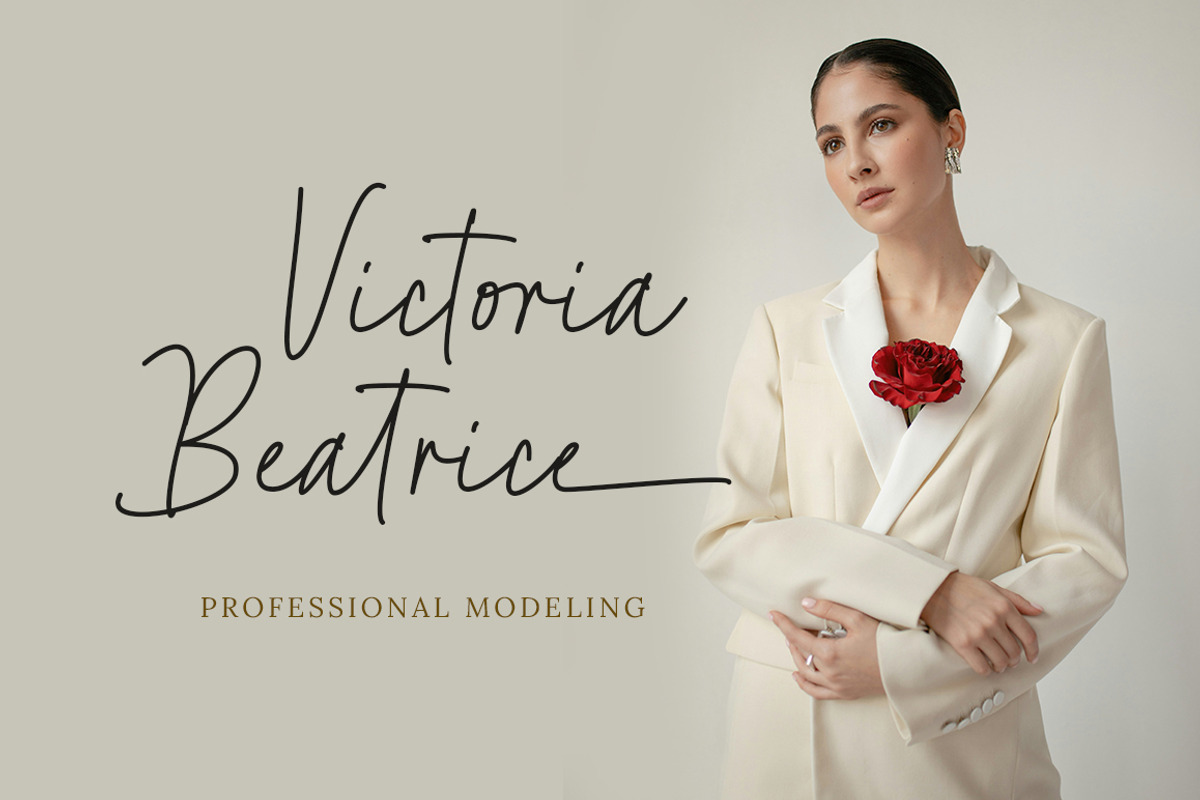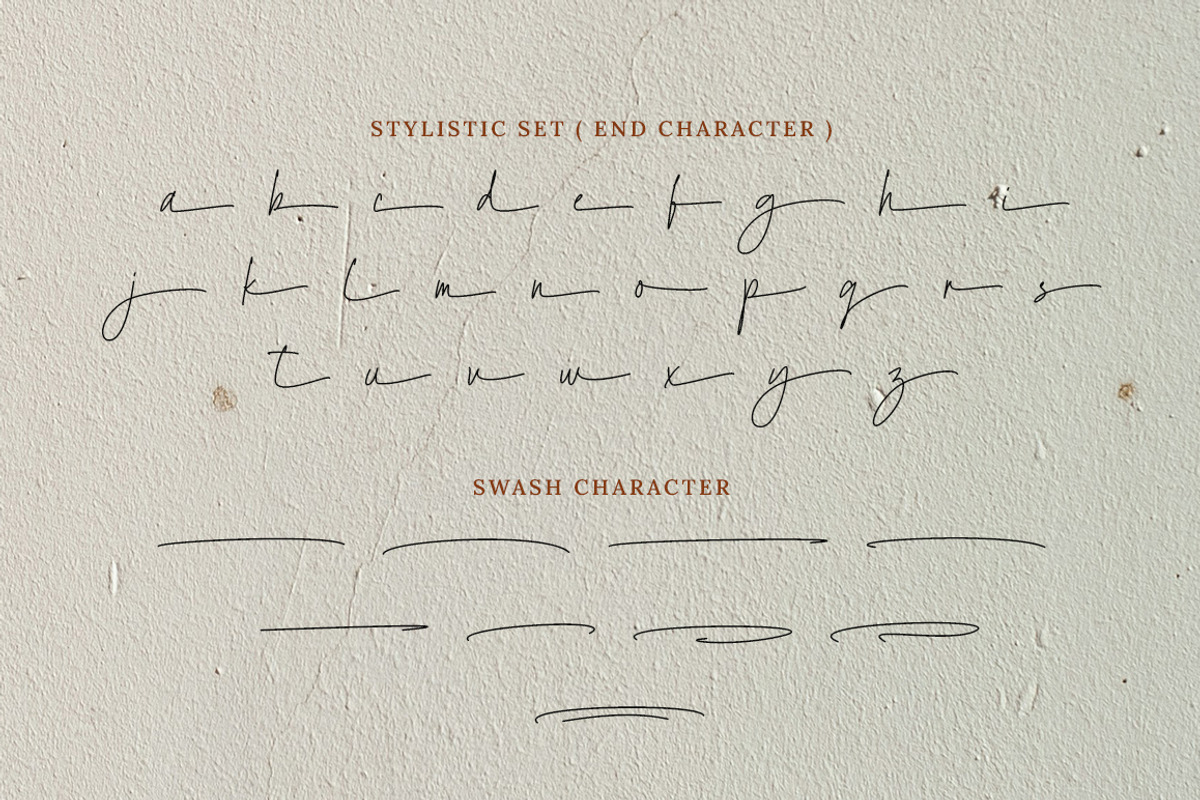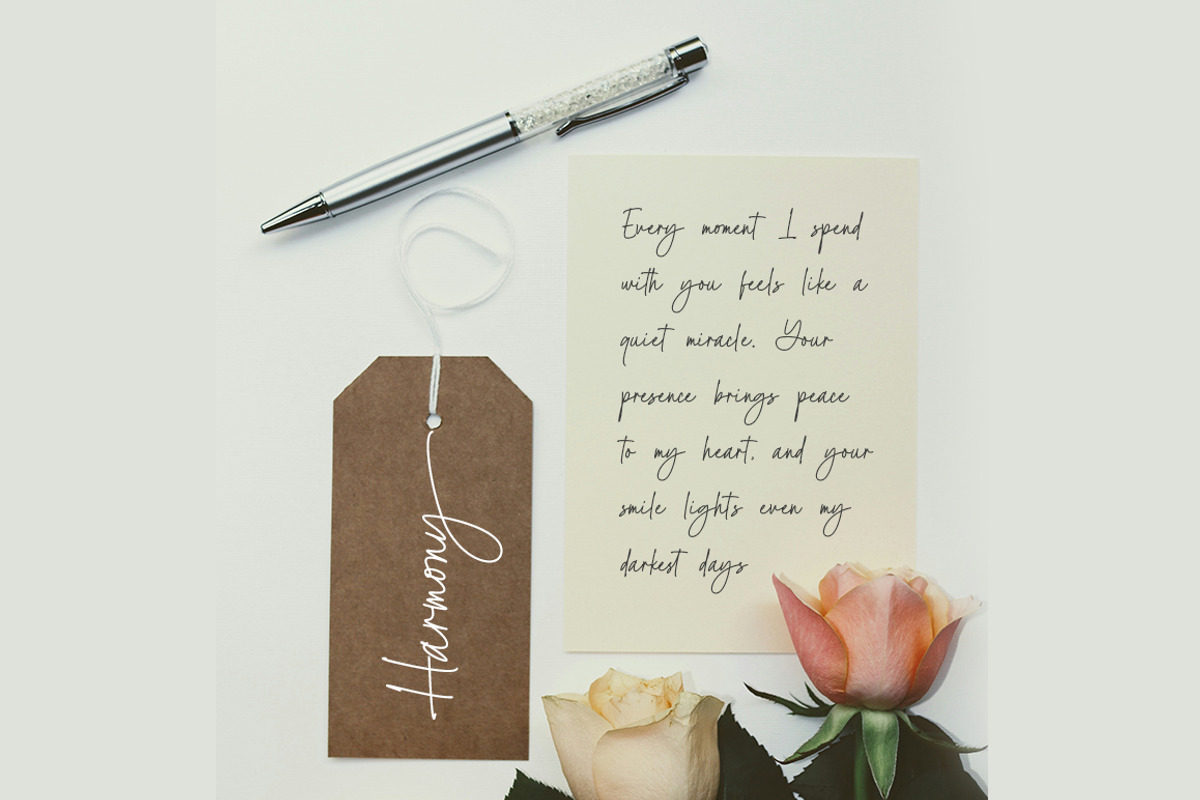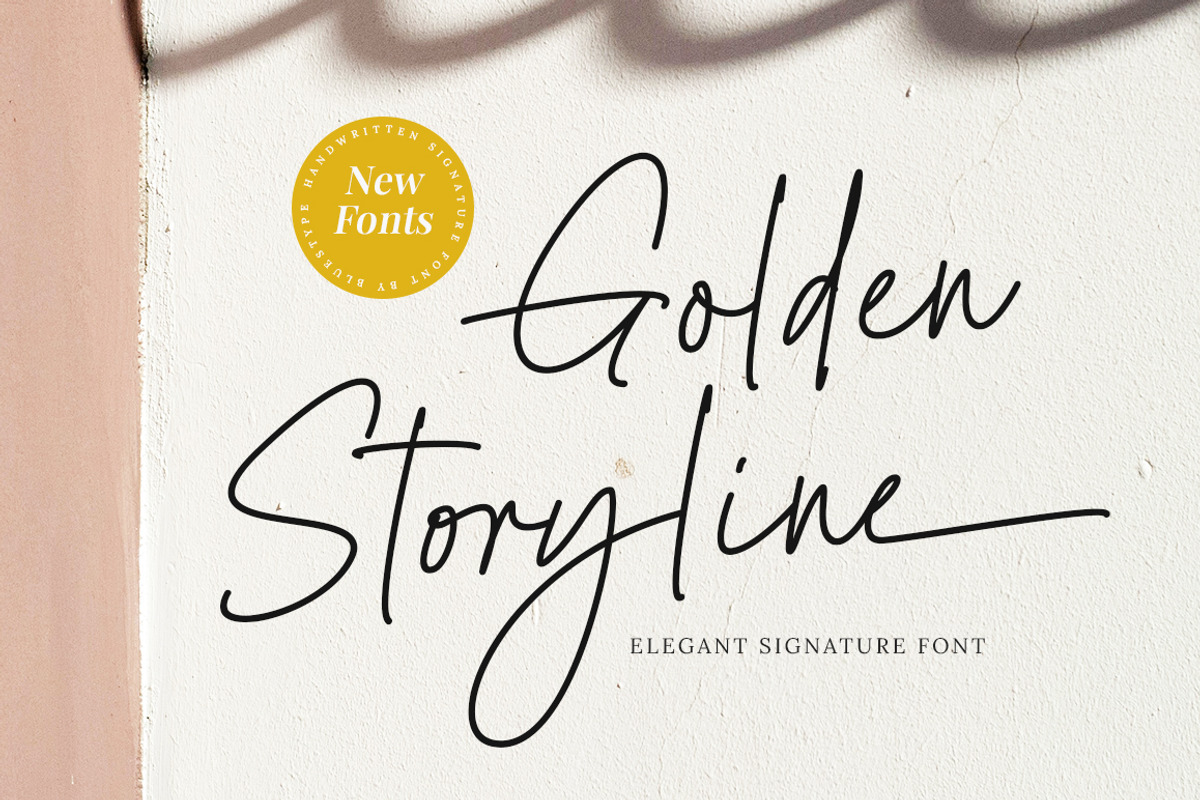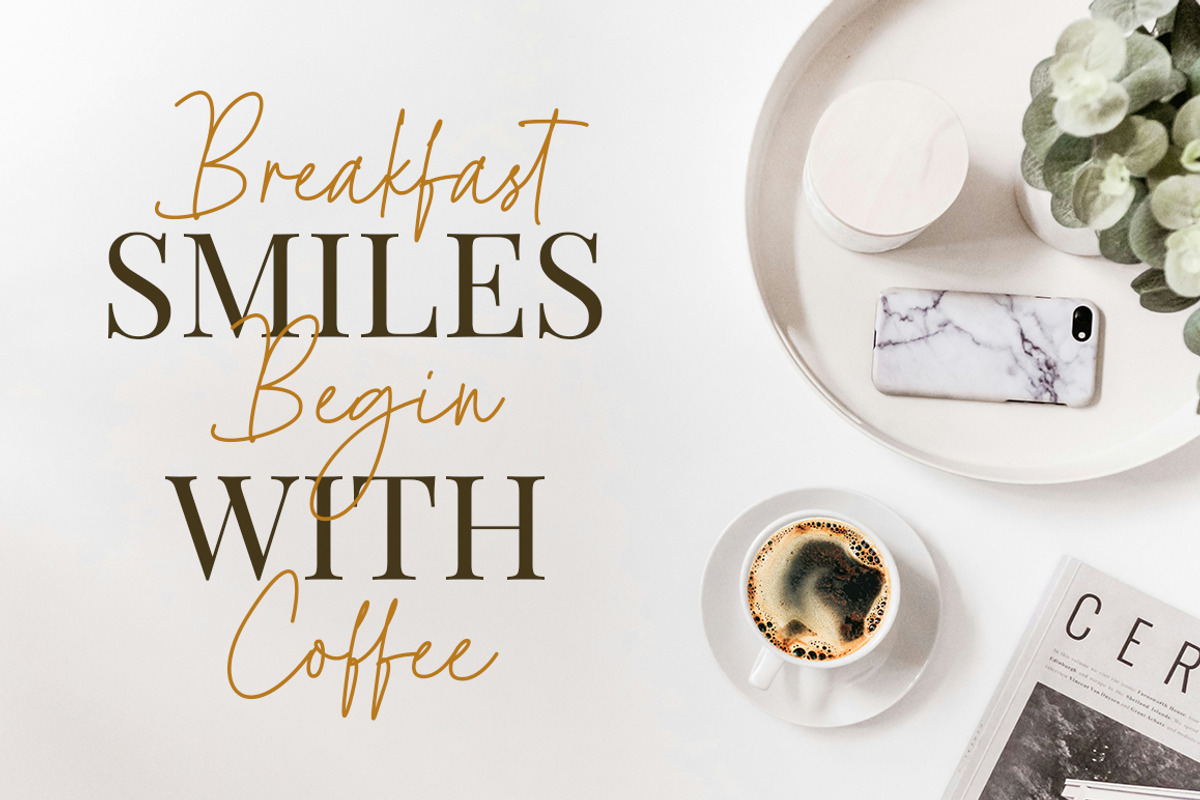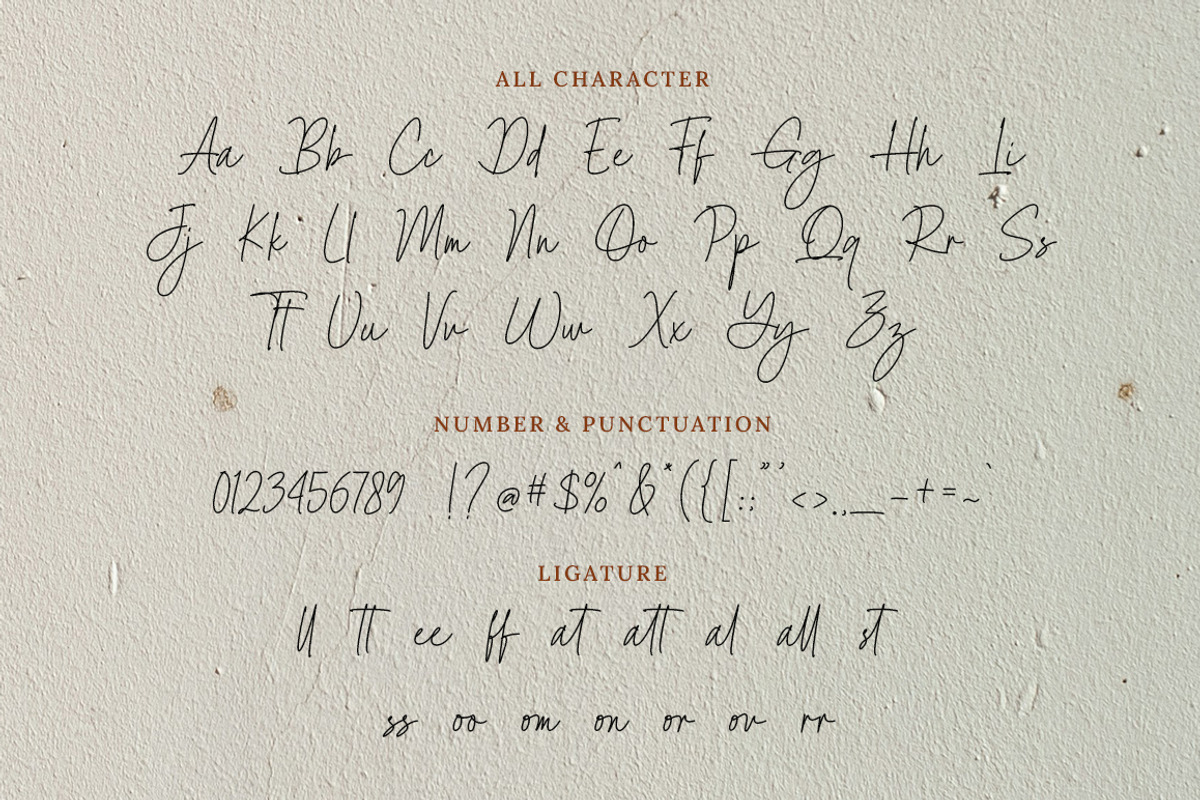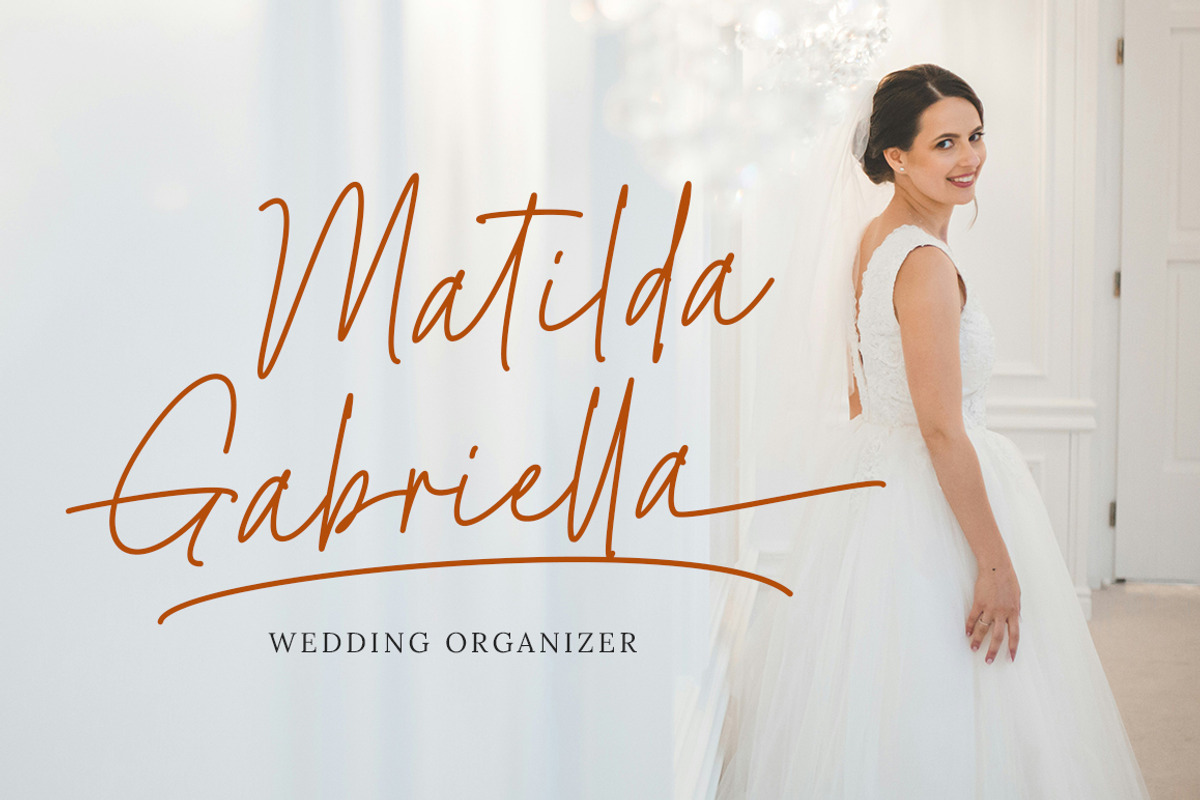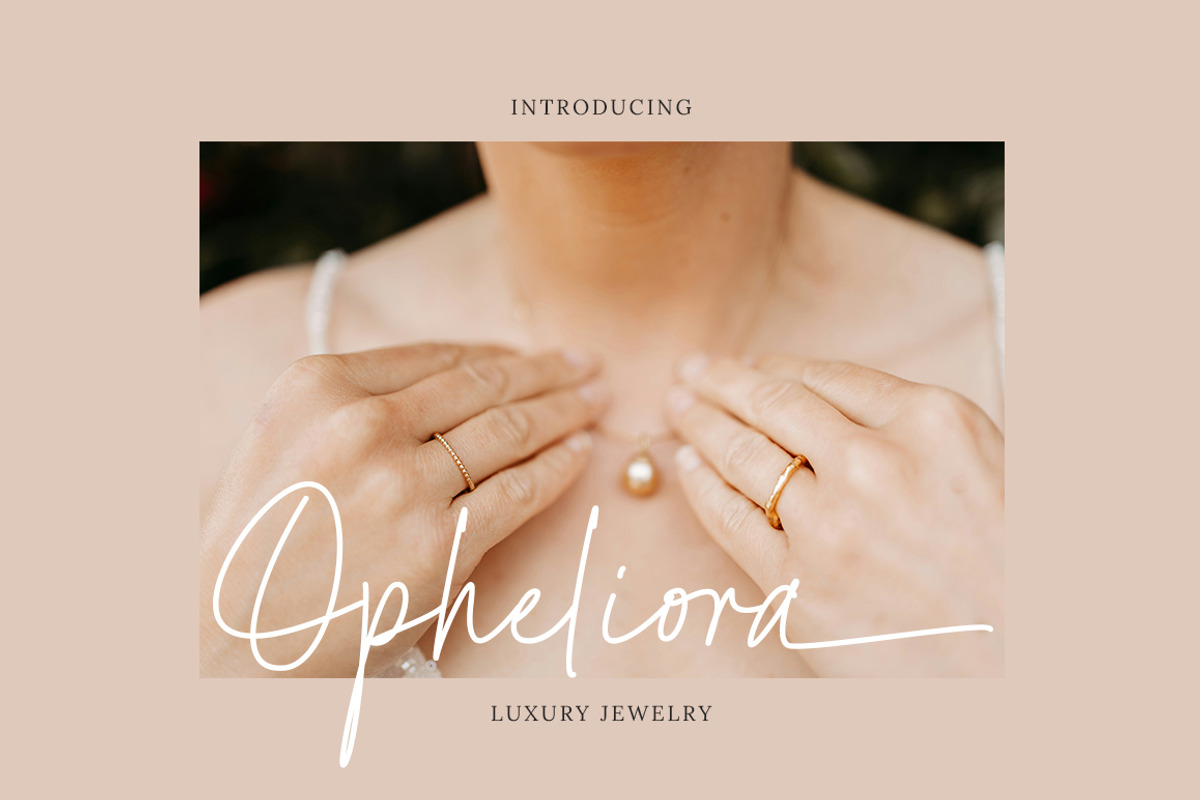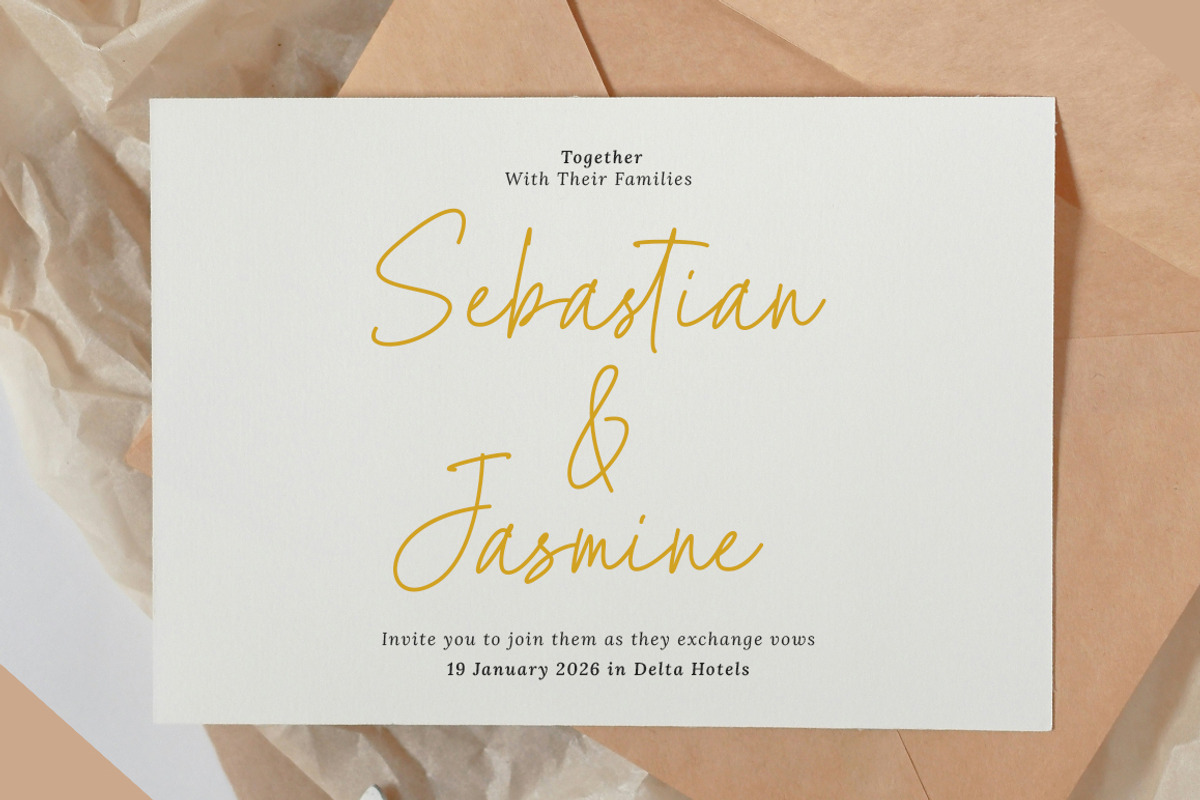
Golden Storyline - Elegant Font
Golden Storyline is an elegant and luxurious handwritten font with a signature feel. This font is made with detailed hand strokes with special line curves, it captures the essence of modern handwriting while exuding a refined, high-end aesthetic.
Perfect for wedding invitations, luxury branding, fashion editorials, personal signatures, and elegant stationery, Golden Storyline adds a touch of exclusivity and class to every design. Its natural flow and stylish details make it a versatile choice for those who seek both beauty and distinction.
- Stylistic Set
- Swash Character